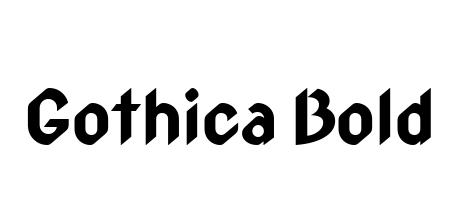
Gothica
By Wojciech Kalinowski
Category  Heading, Display, Bold, Sans-serif, Blackletter, Gothic
Gothica Bold: A font that exudes strength and medieval elegance. Its sharp, angular serifs and bold weight give it a commanding presence. The letters are densely packed, creating a powerful, almost imposing feel, suggesting a sense of authority and historical significance. It’s a font that demands attention.